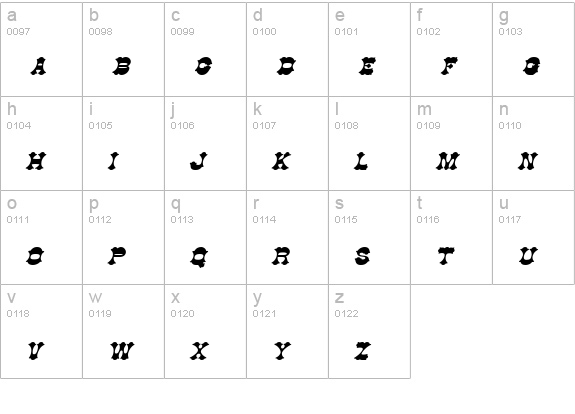
Cowboy Bold Italic is a strong, high-contrast, italic variant in the Cowboy typeface family \xE2\x80\x94 well suited to headlines, attention-grabbing titles, and strong calls-to-action.
Cowboy Bold Italic font is a striking and adventurous typeface that exudes the rugged charm of the Wild West. Its bold and italicized design gives every word a powerful and dynamic presence, perfect for making a bold statement in your design projects. Whether you're creating posters, logos, or branding materials, Cowboy Bold Italic font will add a touch of daring style. The best part? This unique font is available for free download at FontsMarket.com, making it easily accessible for all your creative needs. Embrace the spirit of the frontier with Cowboy Bold Italic font and let your designs stand out with its bold and italicized flair.